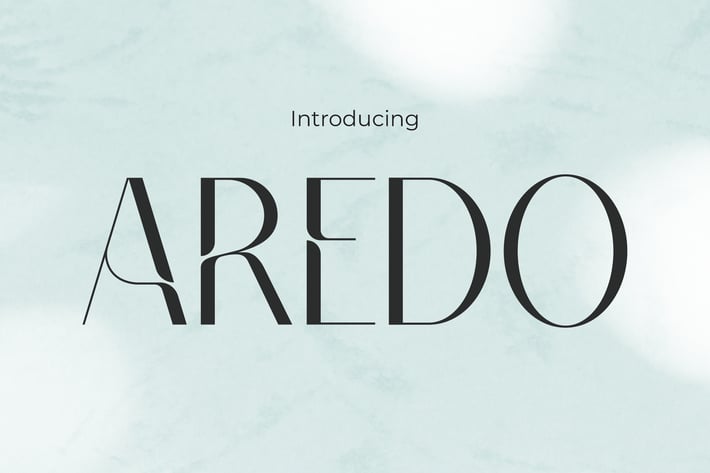
Aredo - Sleek Elegance Modern Font
Aredo Elegant Fonts
Aredo – a high-contrast modern serif font that blends refined elegance with editorial character.
Designed with gracefully soft terminals and harmonious proportions, Aredo brings a contemporary sophistication to fashion-forward branding. With its sleek, clean-cut letterforms and generous spacing, this font offers a stylish yet functional feel that’s ideal for upscale editorial layouts, modern packaging, or digital lifestyle branding. The structure is semi-geometric with classic Roman elegance, resulting in a typeface that feels both timeless and new.
Whether you’re creating a luxury product catalog, a fashion label lookbook, or a minimalist wedding suite, Aredo is the perfect typeface to elevate your design presence. It speaks with subtle authority, making it ideal for projects where you need to evoke clarity, elegance, and emotional trust. Its modern editorial edge pairs beautifully with muted color palettes and clean layouts.
Key Features
Why Designers Choose Aredo :
- Elegant Modern Feel – Perfect for editorial use, branding identities, and product packaging
- Stylish Contrast – Sharp lines and smooth curves offer a fresh high-end aesthetic
- Versatile Application – Works well in headers, logos, magazines, invitations, and more
- Professional Appeal – Gives your design a sense of trust, refinement, and clarity